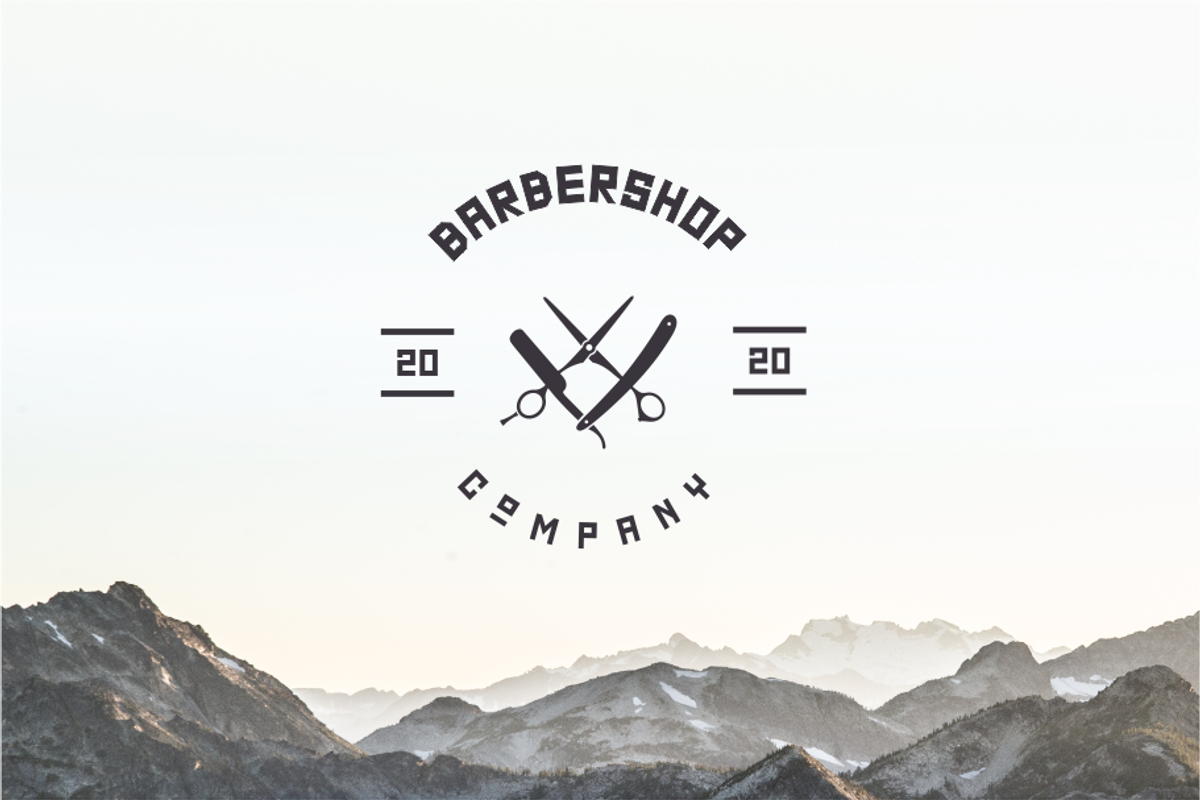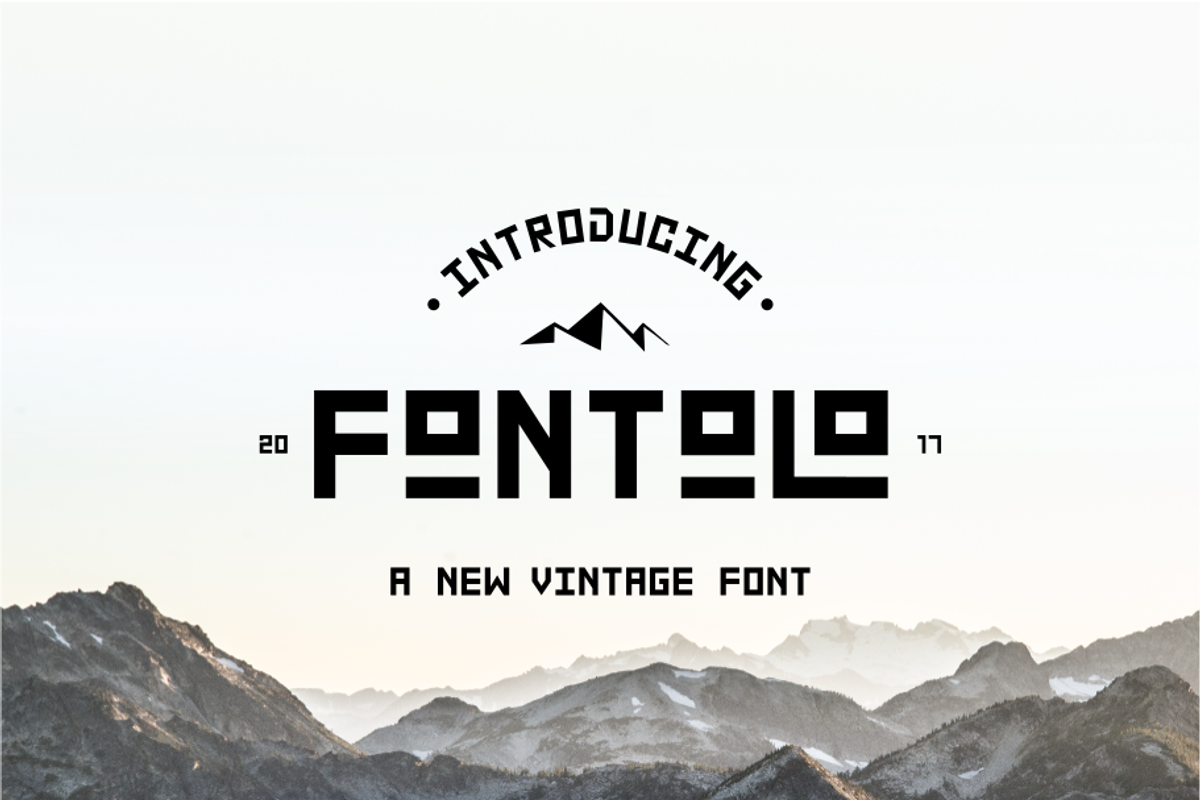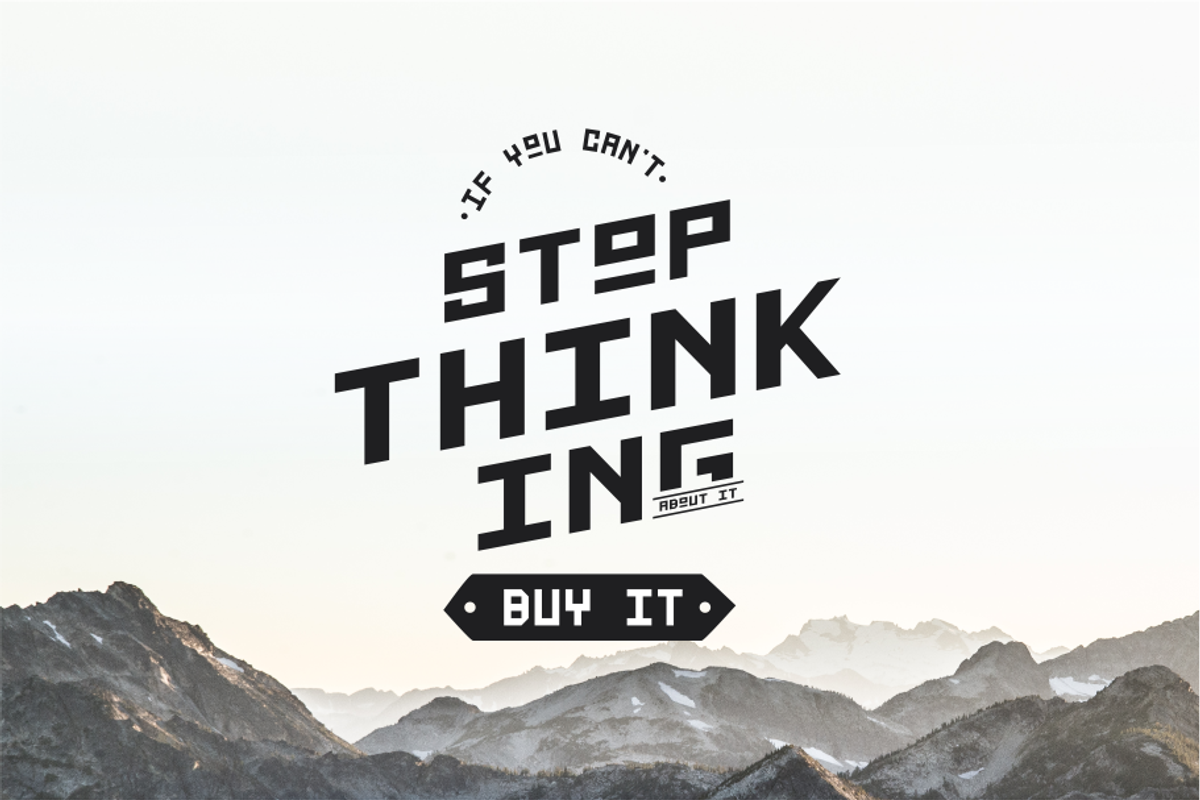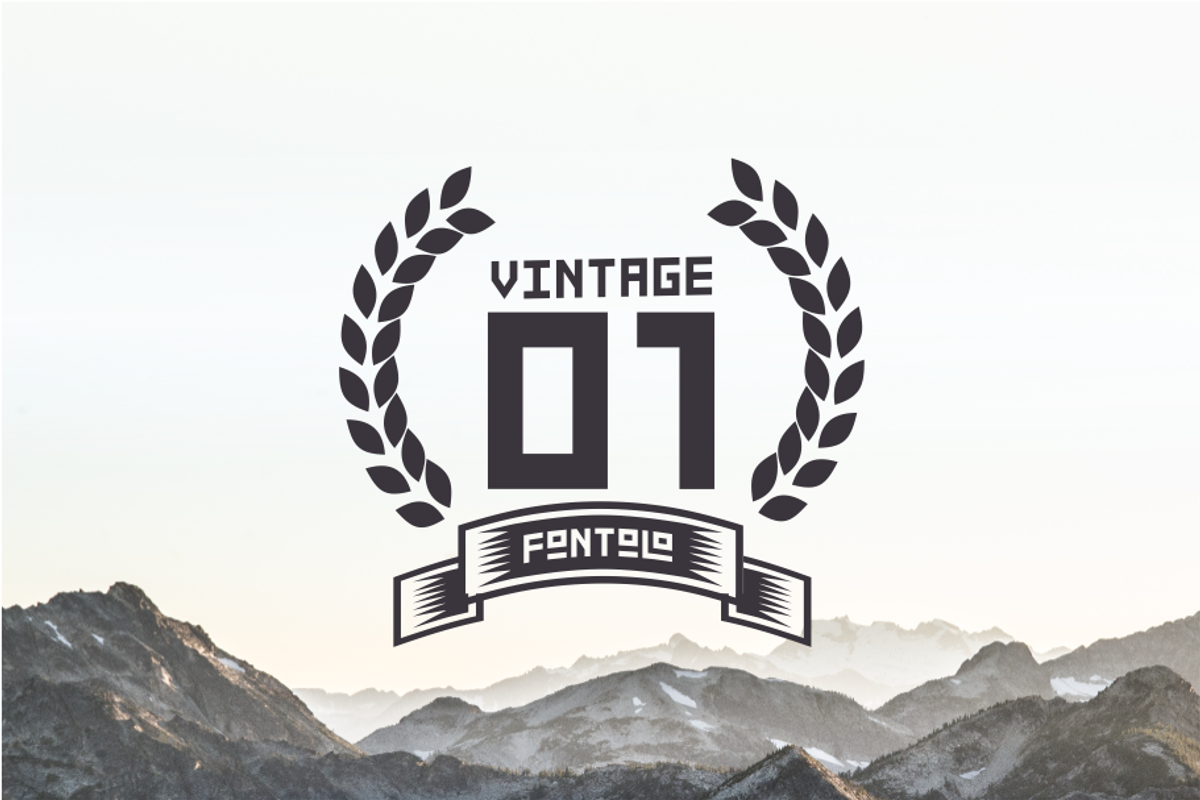
Fontolo Typeface + BONUS
Fontolo is an condensed font . Fontolo can give a diverse set of aesthetics. With light giving a much more modern, fashionable feel and the bold giving a more rugged vibe for whisky packaging. fontolo have a touch of vintage and modern design. for your project like, poster, logo, banner, cover book, magazine and etc many more.
Fontolo Typeface + BONUS by Akdesain fits naturally into Branding, posters, packaging, typography.